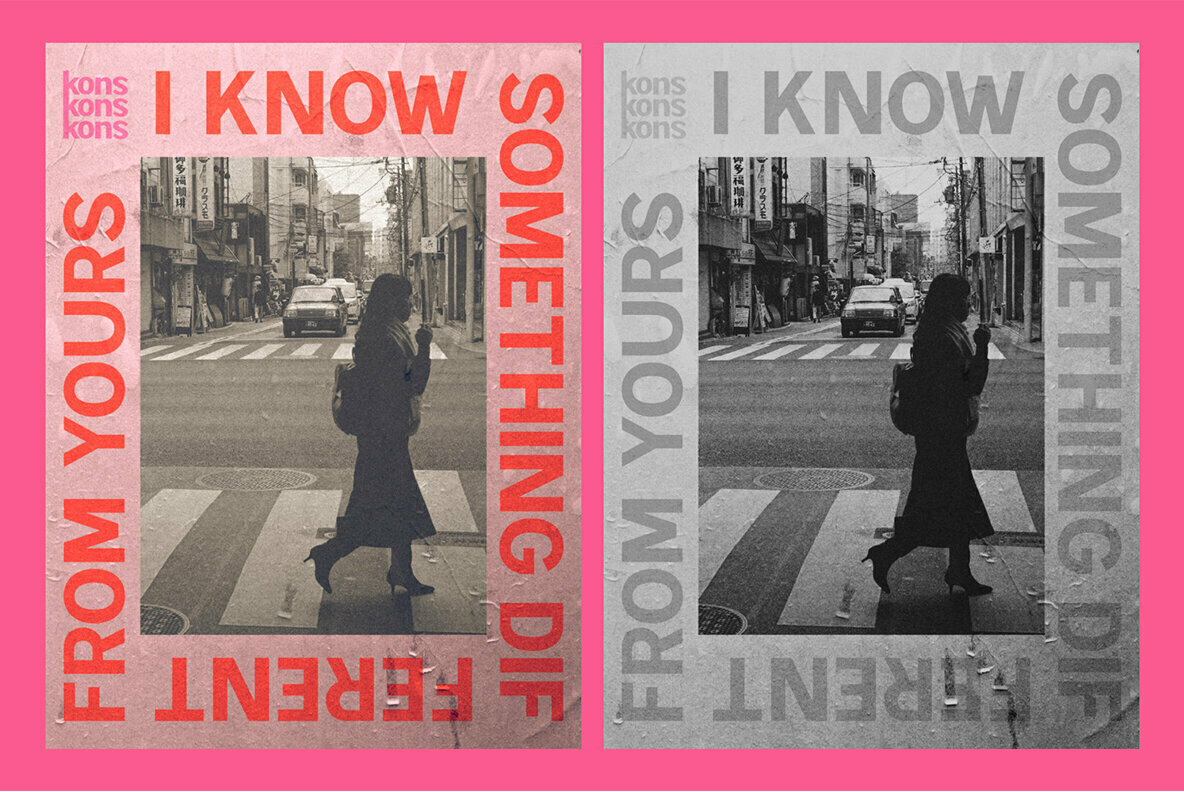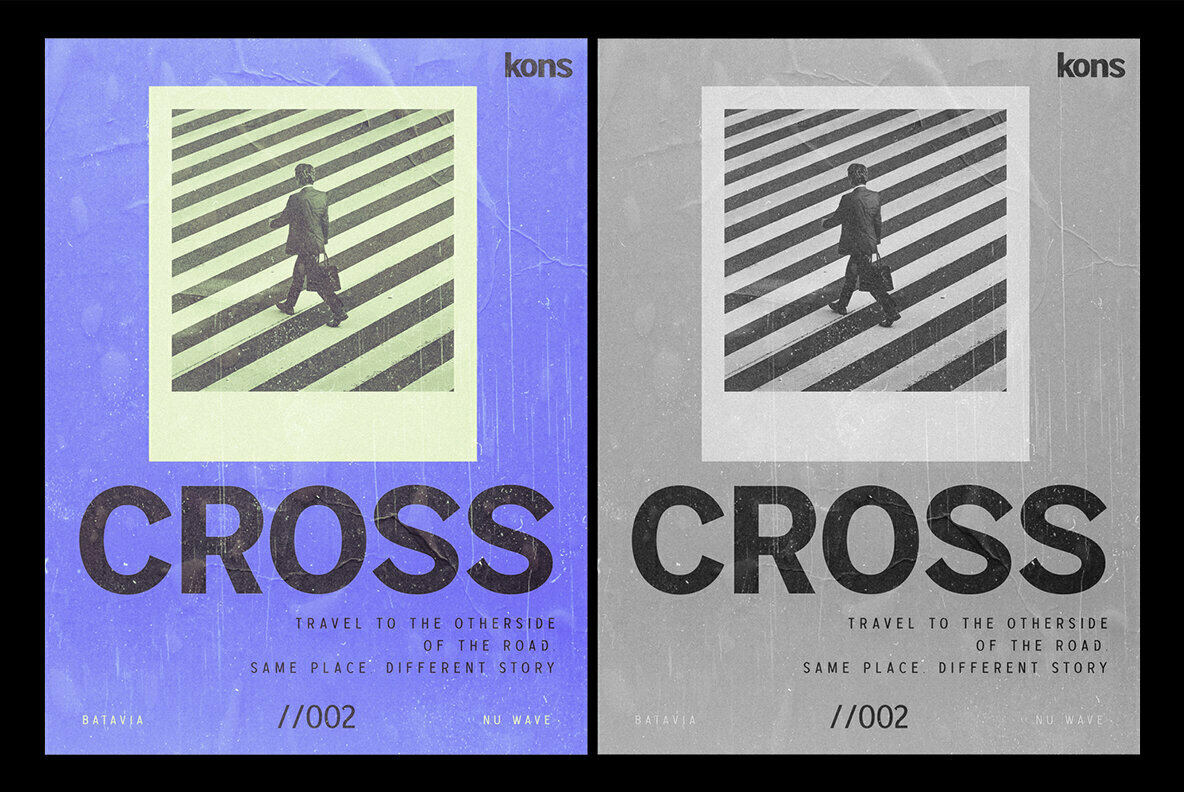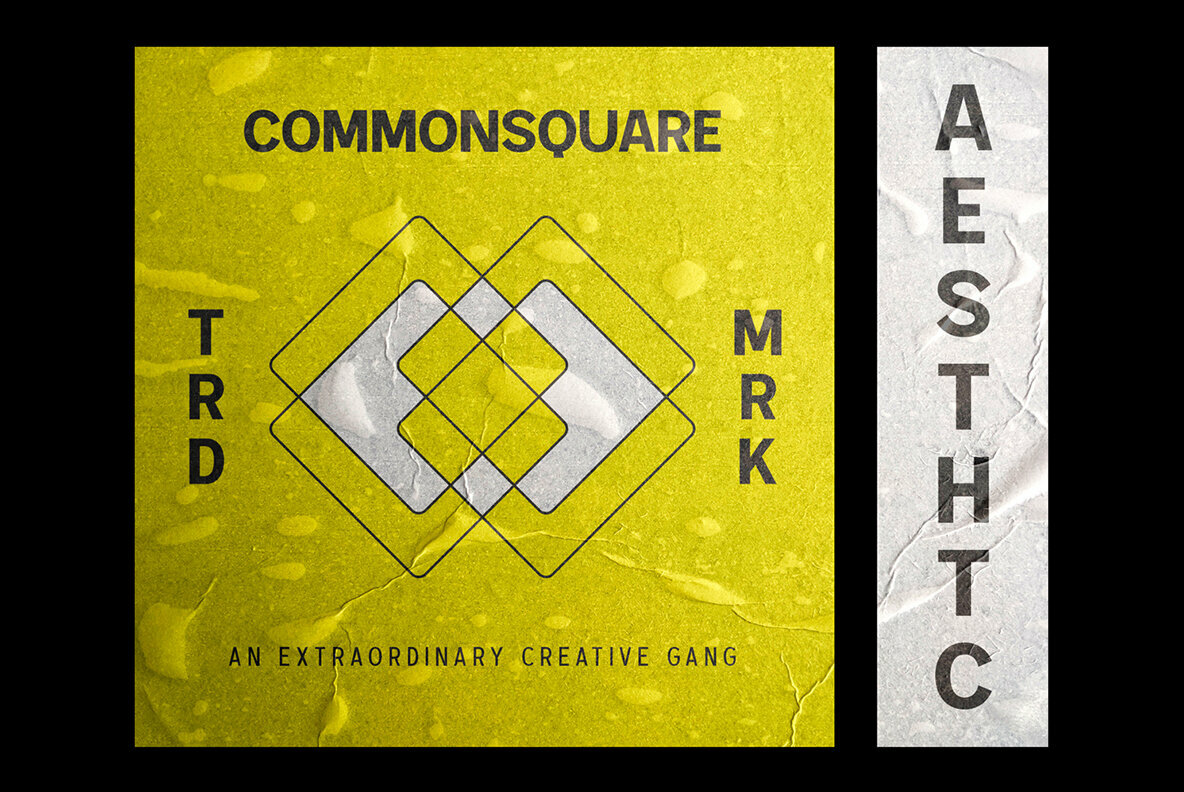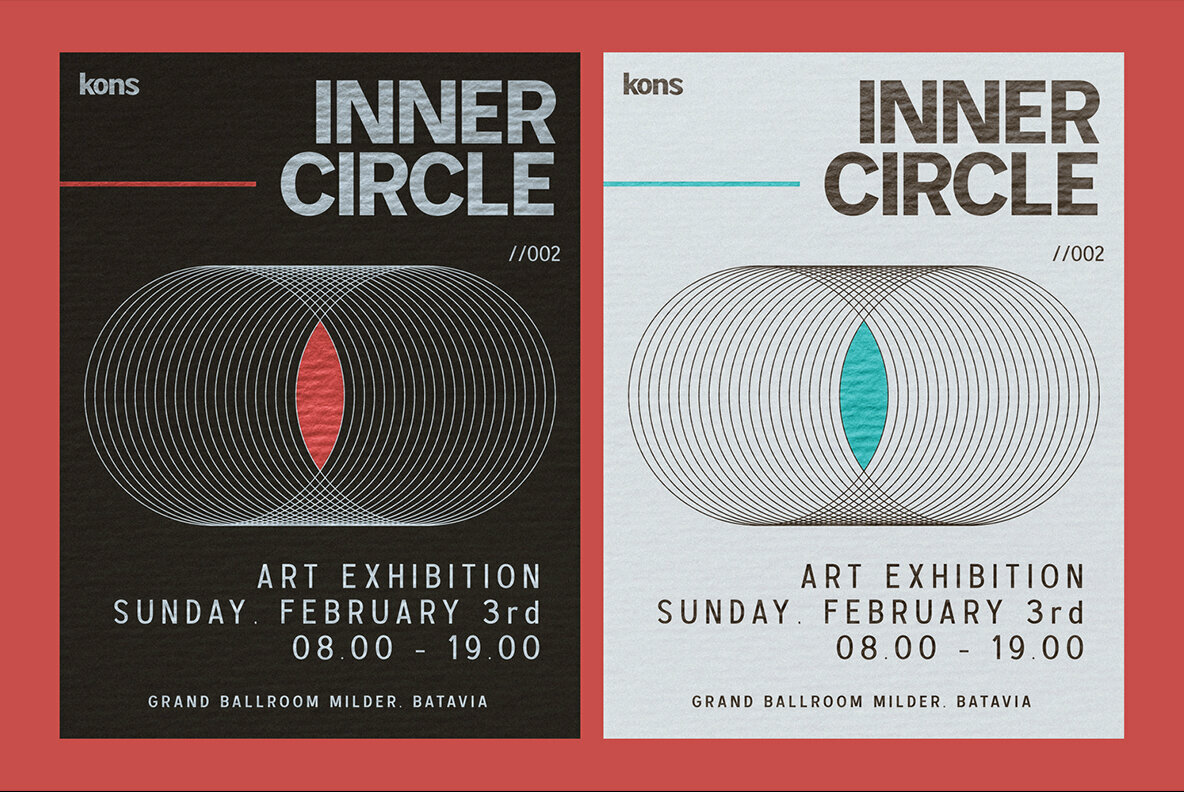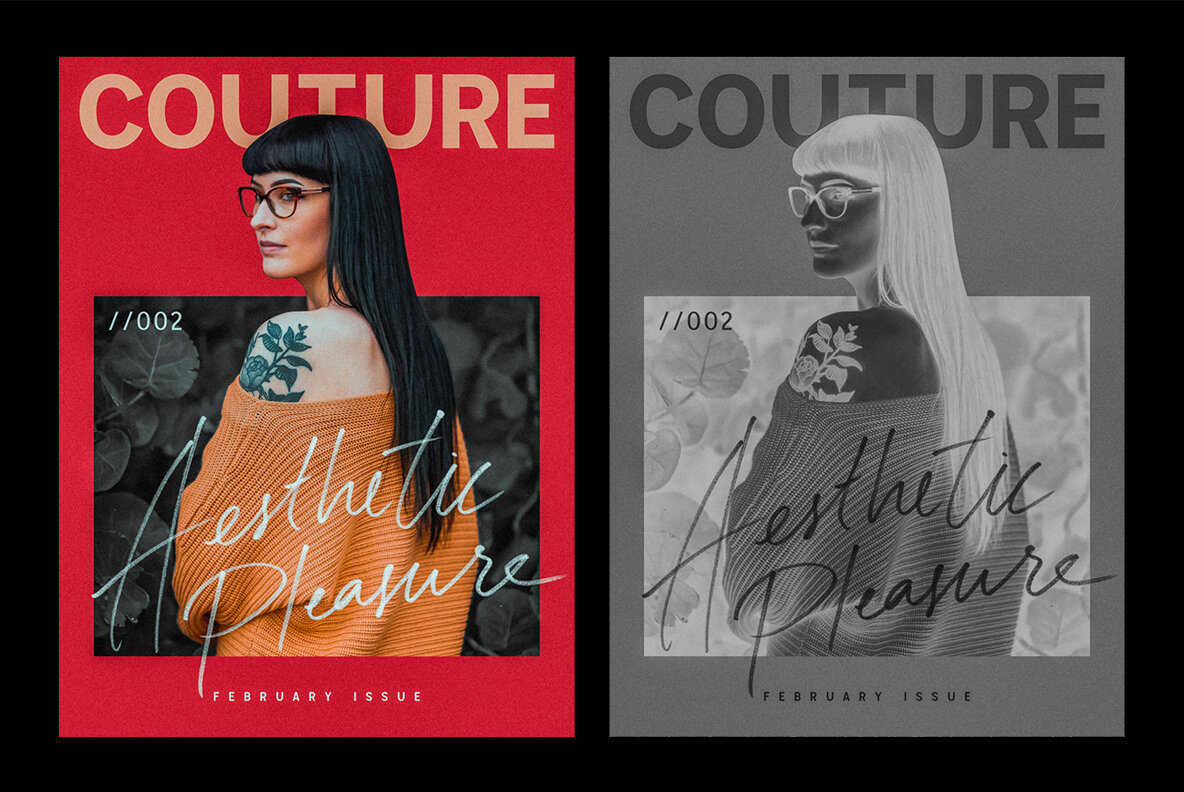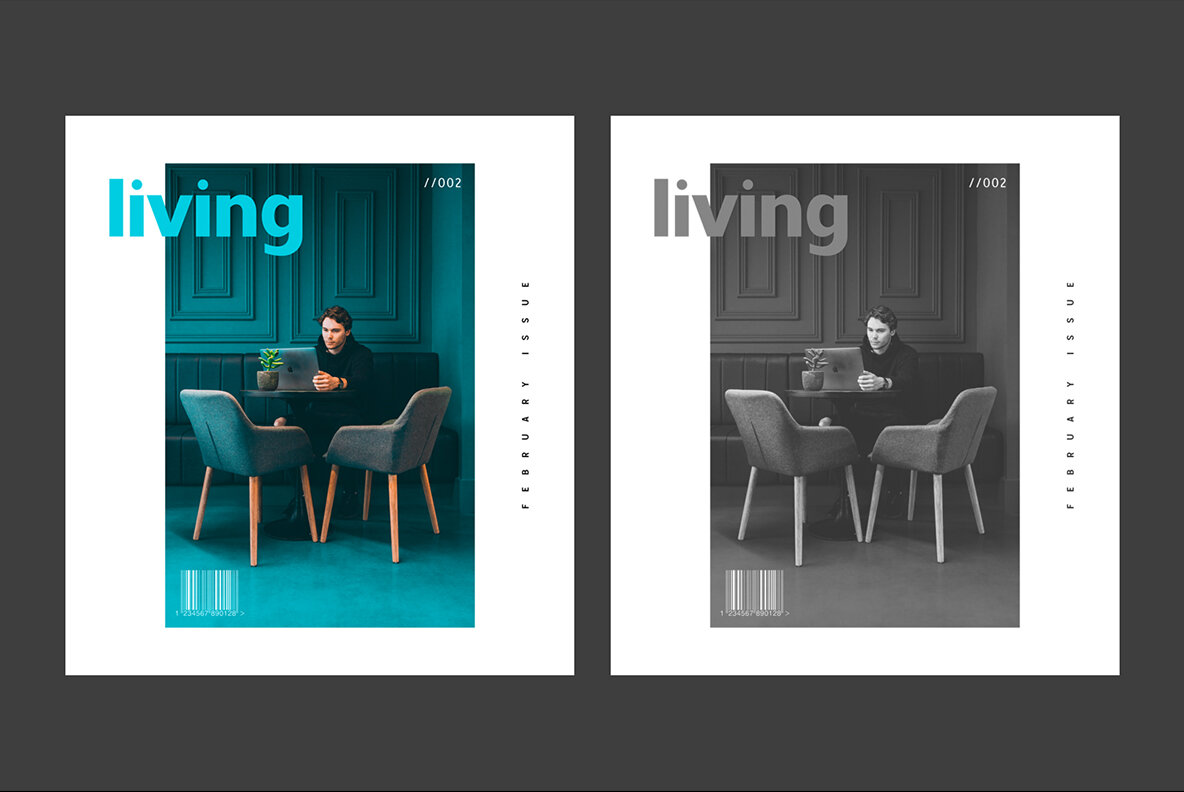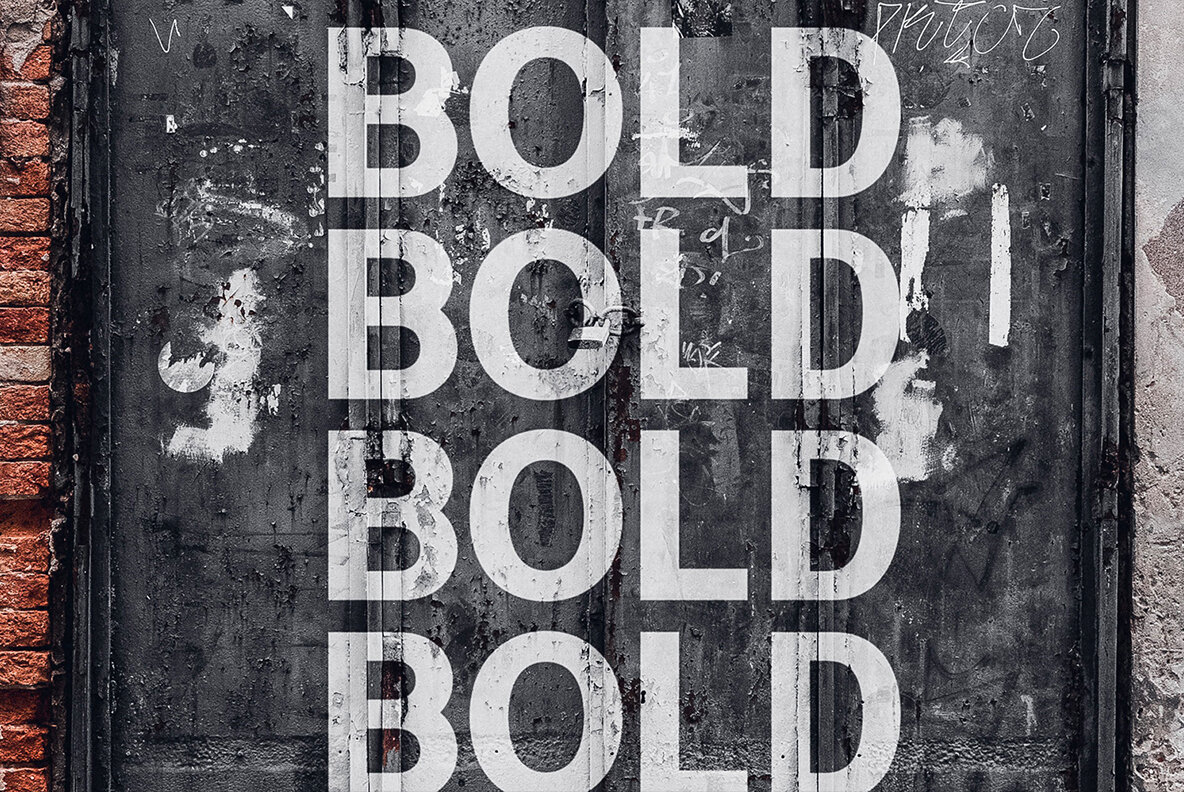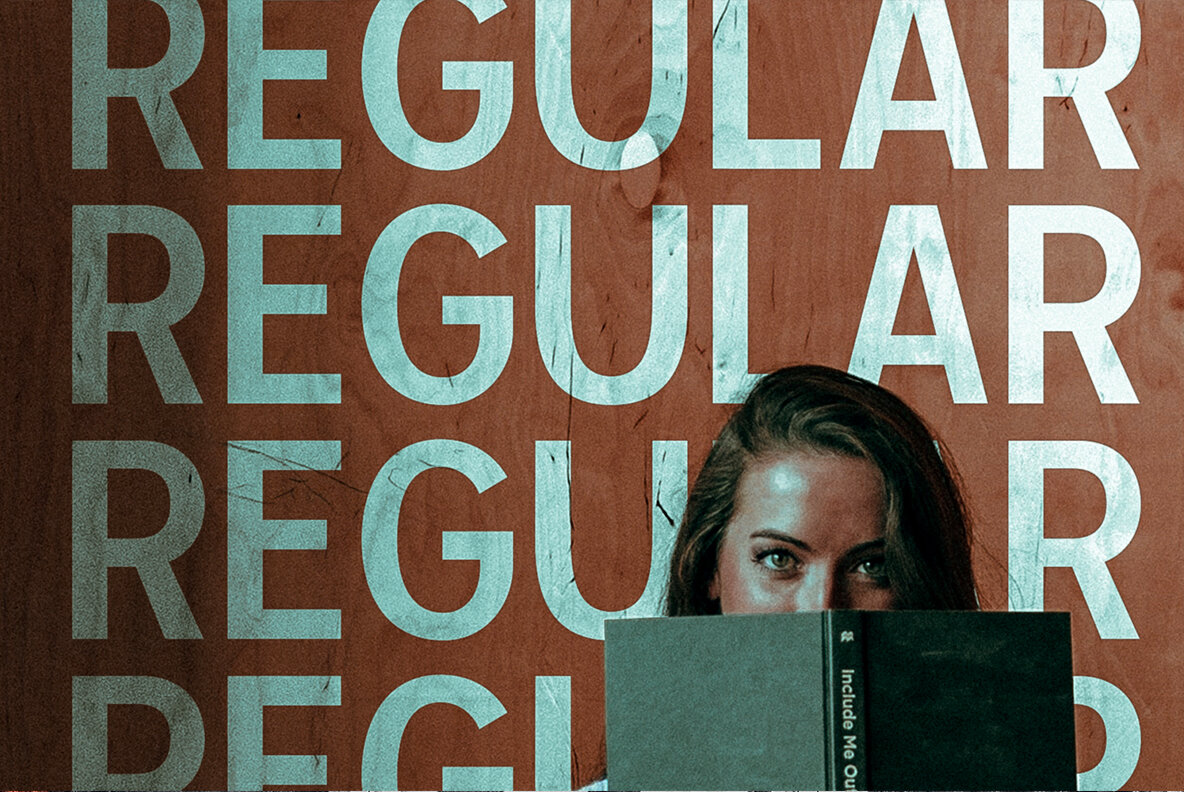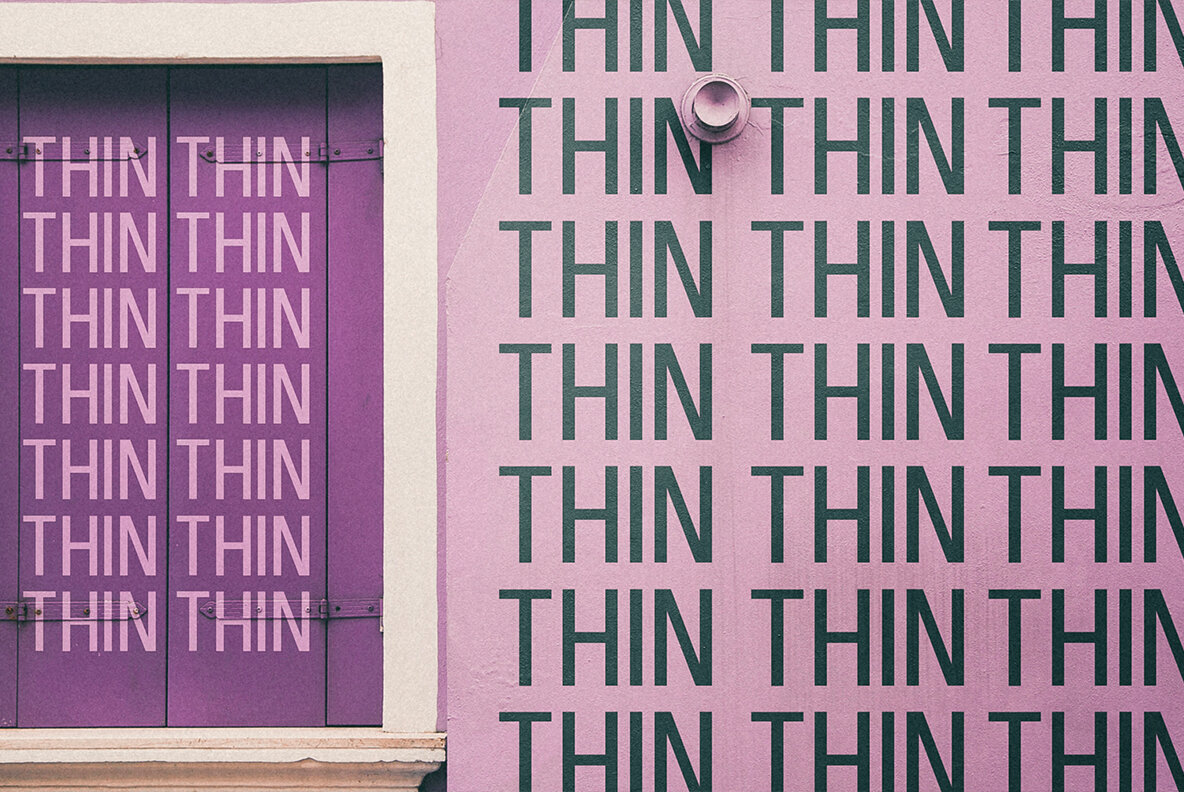
Kimball Font
In today's bustling design landscape, finding a unique typography is essential. Kimball by Konstantine Studio offers a refreshing take on sans serif fonts, providing an edgy yet versatile solution for modern branding needs. With three weights—Thin, Regular, and Bold—Kimball adapts seamlessly to a range of applications. Whether for casual and streetwear branding, event posters, website design, or social media content, Kimball serves as an effective visual communication tool.Kimball: A Distinctive Sans Serif for Bold Branding